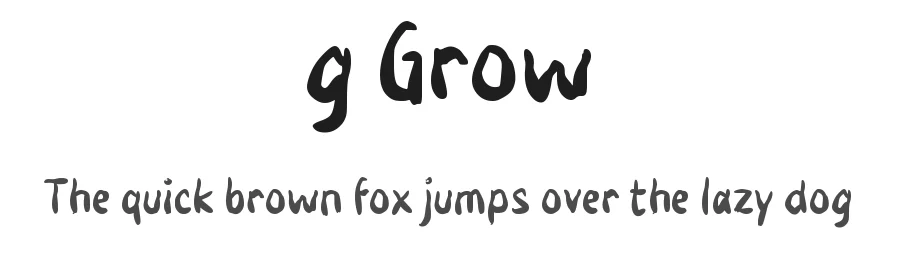
About Crayone Font
The Crayone is a chalky sans. ItΒs an unique font that is handwritten with crayon pastels.
It can be used for cafe or coffee shop menu lists, branding, photography, watermarks, advertisements, product designs, labels, product packaging, book content, quotes and much more!
Abo Daniel
| Designer | Abo Daniel 2018 |
Crayone Font is a decorative font that shines as a display or heading face. Pair it with a clean sans-serif or serif font for body text β the contrast creates a clear hierarchy while the two styles stay balanced and easy to read.